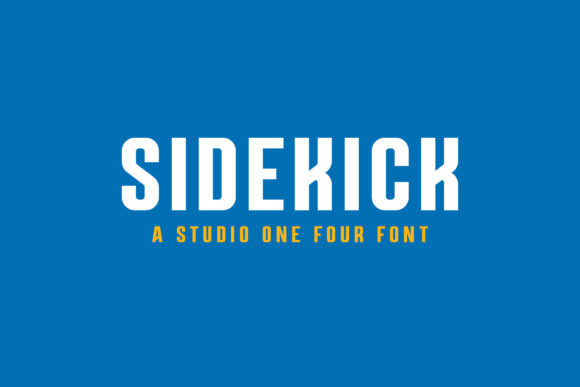
Welcome to the realm of Sidekick Font, the ultimate display font poised to revolutionize your creative endeavors. Prepare to be mesmerized as this font breathes life into your designs, captivating audiences with its striking presence and undeniable charm.
Sidekick Font is a brainchild of Studio One Four, a renowned foundry renowned for pushing creative boundaries. Their passion for excellence shines through in every curve and stroke of this remarkable font, ensuring it stands out from the crowd.
Inspired by the very essence of a sidekick - a loyal companion and an indispensable ally - this font is designed to bolster your creative projects, lending them an air of sophistication and distinction. Its unwavering support and unwavering reliability make it an invaluable asset to any designer's arsenal.
Unleash your creativity and watch as Sidekick Font transforms your designs into captivating masterpieces. Let your imagination soar as you witness your projects take on a life of their own, captivating the attention of all who lay their eyes upon them.
Whether you're crafting a modern resume that demands attention, designing a captivating logo that leaves a lasting impression, or creating marketing materials that ignite engagement, Sidekick Font is your trusted sidekick, ready to elevate your work to new heights of excellence.
With its inherent versatility, Sidekick Font seamlessly adapts to a myriad of design aesthetics, effortlessly complementing both traditional and contemporary styles. Its ability to effortlessly blend with diverse color palettes and graphic elements ensures that your designs exude a sense of harmony and visual cohesion.
Seize this opportunity to add Sidekick Font to your font library and unlock a world of creative possibilities. Experience the thrill of witnessing your designs come alive, captivating audiences with their captivating charm and undeniable allure.
Don't let this chance pass you by. Embrace the power of Sidekick Font today and elevate your creative endeavors to unprecedented heights. Let your designs shine brighter than ever before, leaving an indelible mark on the hearts and minds of your audience.